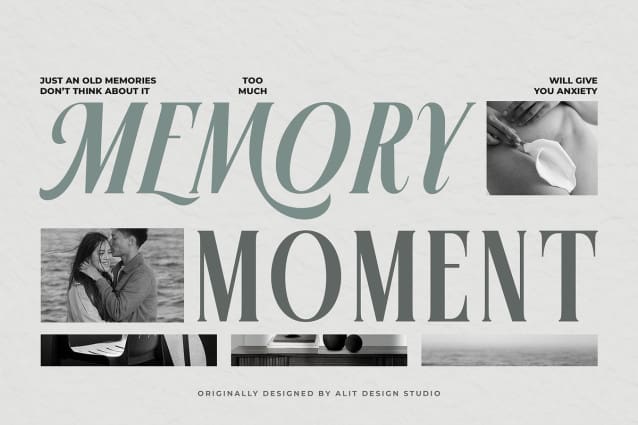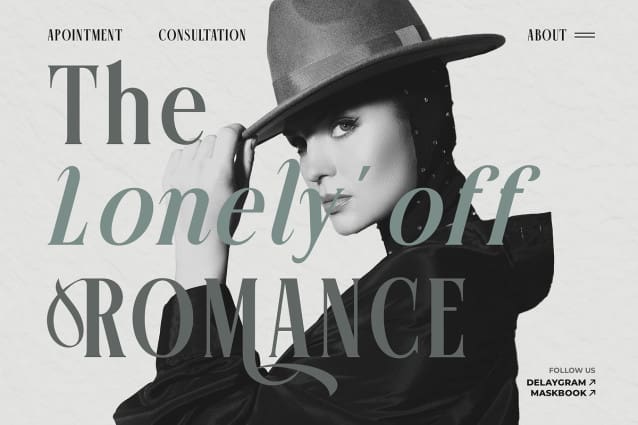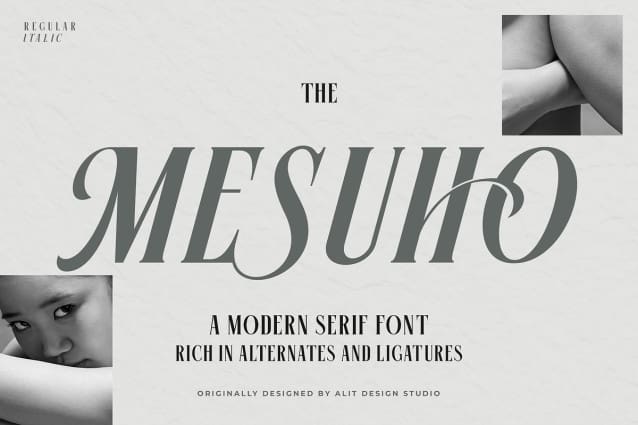
Mesuho Font
Mesuho Font is a sophisticated and elegant serif typeface that effortlessly blends modernity with a touch of vintage charm. Designed for both readability and aesthetic appeal, Mesuho is perfect for projects that demand a sense of refinement and artistry.